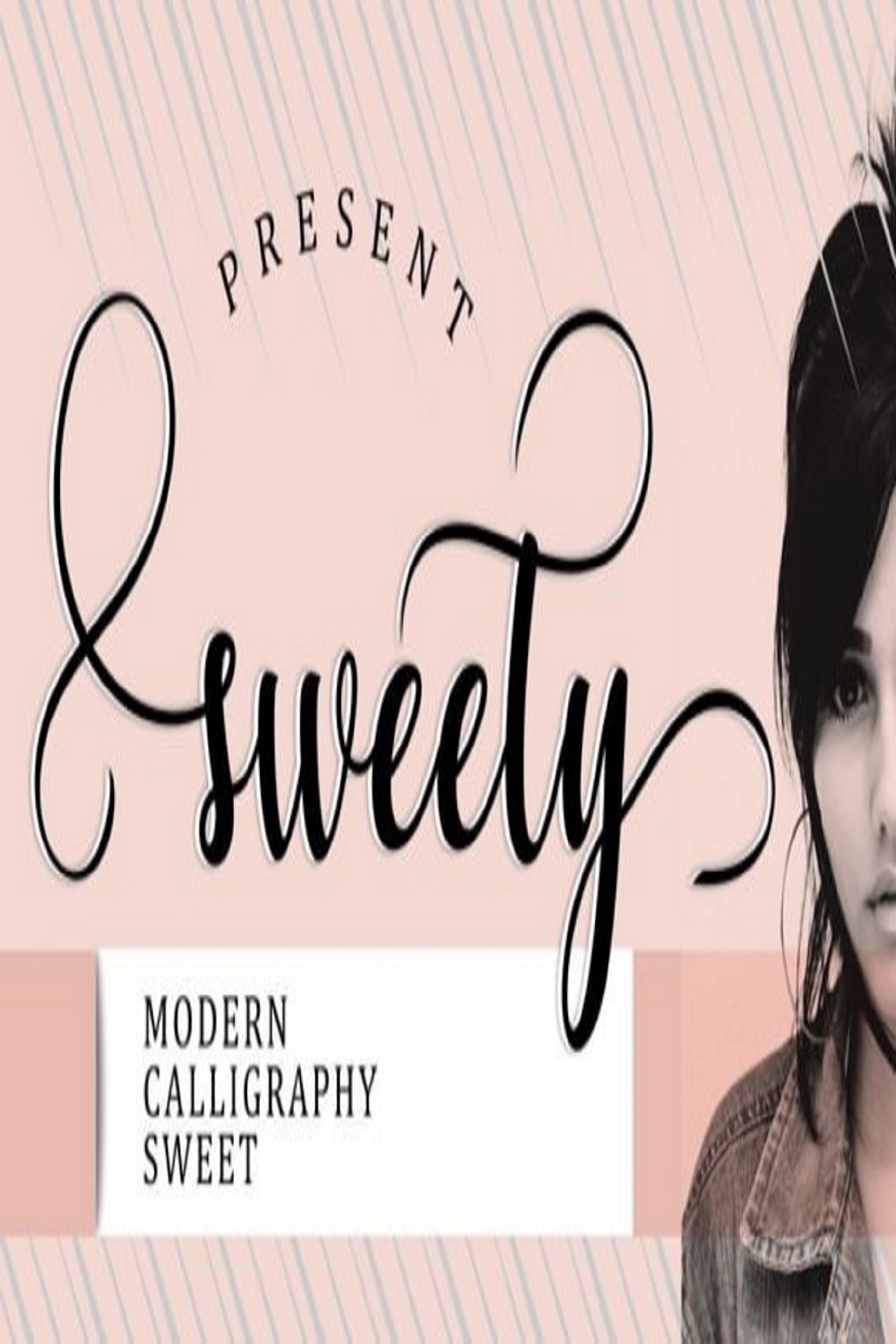
Sweety is an elegant and modern handwritten font that can elevate the look of any creative project! Use it for wedding invitations, birthday cards, thank you notes, apparel designs, and other projects that need a personal touch! This font is PUA encoded, which means you can access all of the glyphs and swashes with ease!